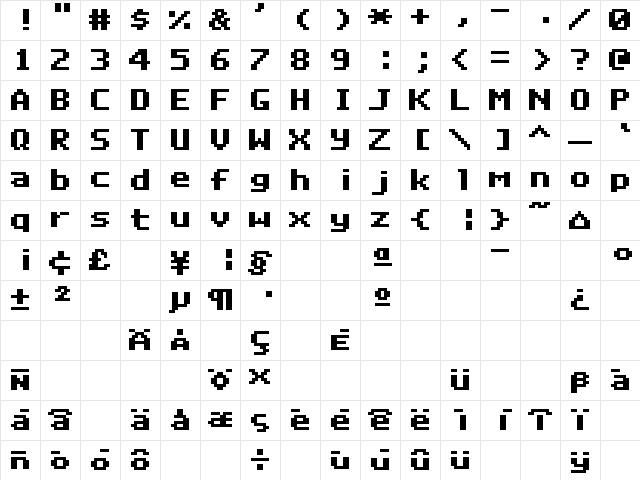
DeluxeFont Regular Font Preview
DeluxeFont Regular
DeluxeFont Regular Font Details
| Foundry | High-Logic |
| Designer | High-Logic - Erwin Denissen 1999 |
Design Context for DeluxeFont Typeface
DeluxeFont takes a measured approach to typography — its balanced proportions and neutral character make it a reliable workhorse for both digital and print work.